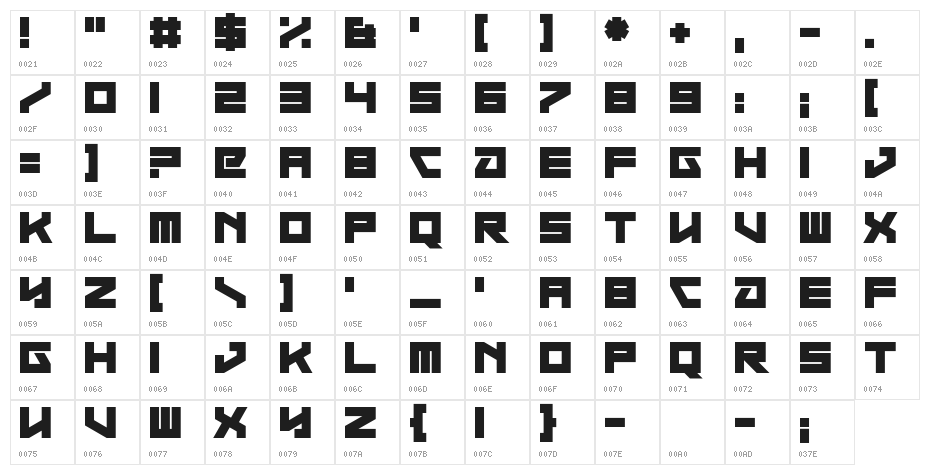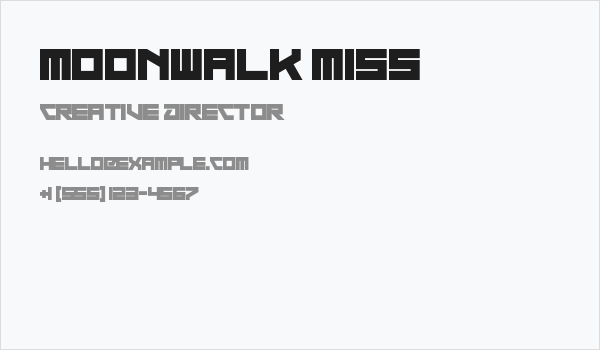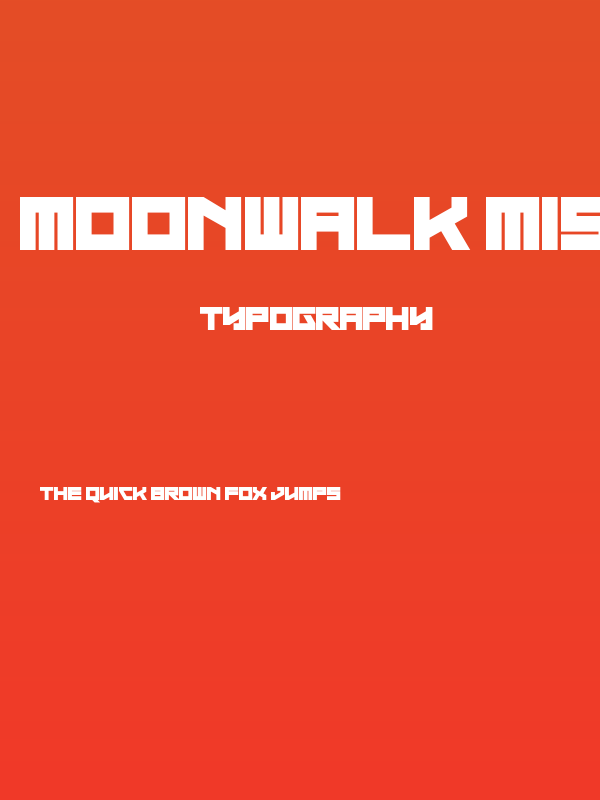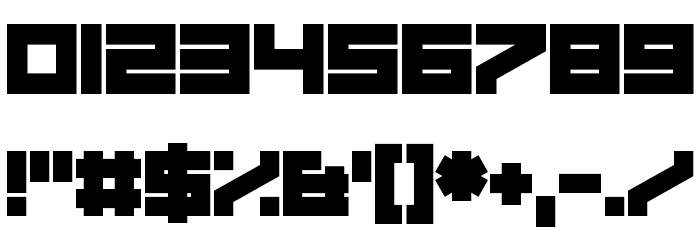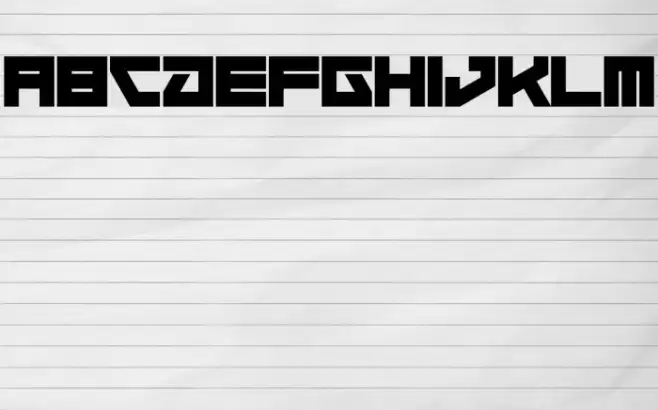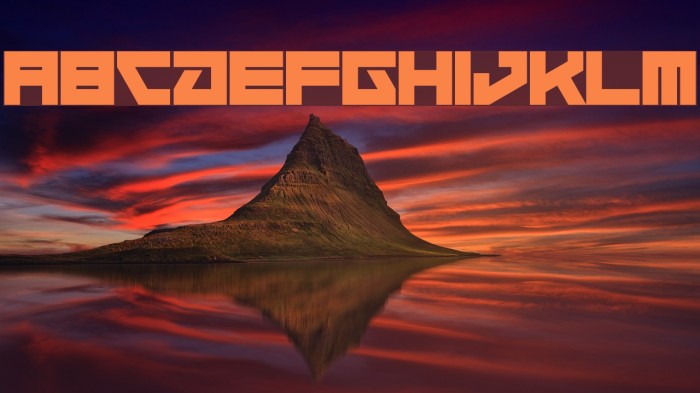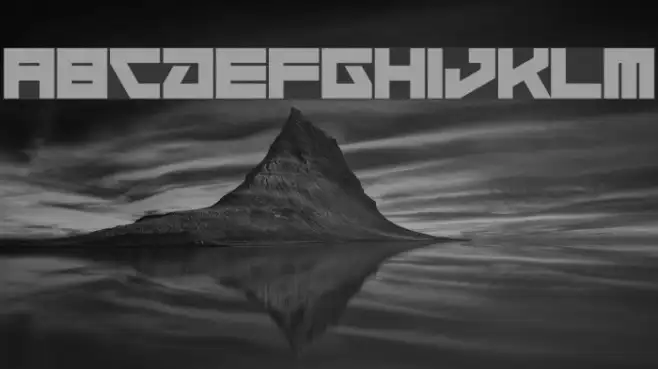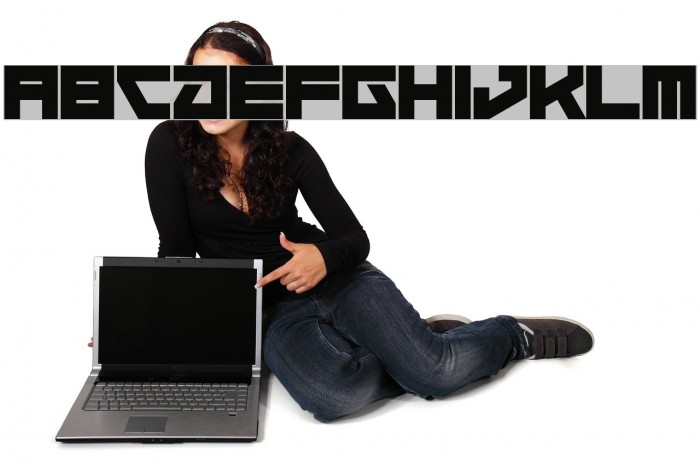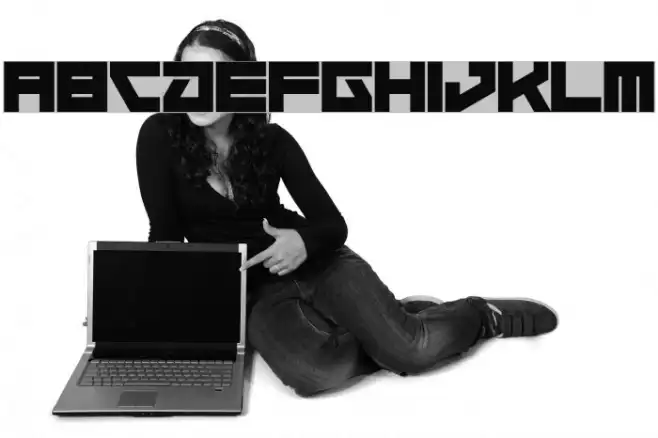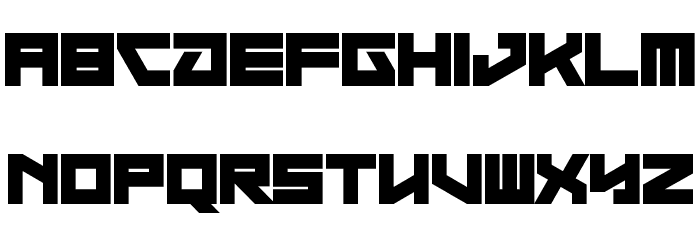
Moonwalk Miss Font
Moonwalk Miss Description
This font features a bold, geometric design with a futuristic and angular aesthetic. Each character is crafted with sharp edges and straight lines, creating a sense of movement and modernity. The uppercase and lowercase letters maintain a consistent style, with the lowercase slightly smaller but equally bold. Numbers and special characters follow the same design principles, ensuring uniformity across all glyphs. The font's unique style makes it stand out, suitable for projects that require a strong visual impact.
| Proposed Projects | Ideal for sci-fi themed projects, video game titles, posters, and branding that requires a modern and impactful look. |